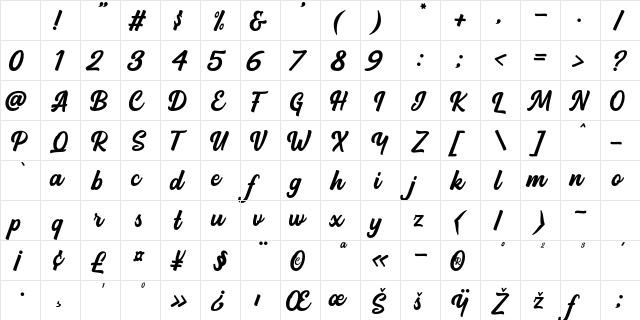
Complete Backstone Regular glyph index. Displaying only characters natively supported by Backstone Regular font.
Backstone is a composed and adaptable typeface that performs quietly and consistently across a wide range of design contexts.